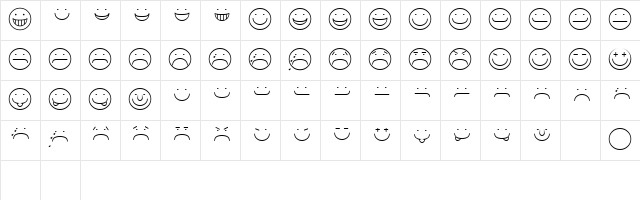
Smiley Regular
Design Context for Smiley
Smiley is a composed and adaptable typeface that performs quietly and consistently across a wide range of design contexts.